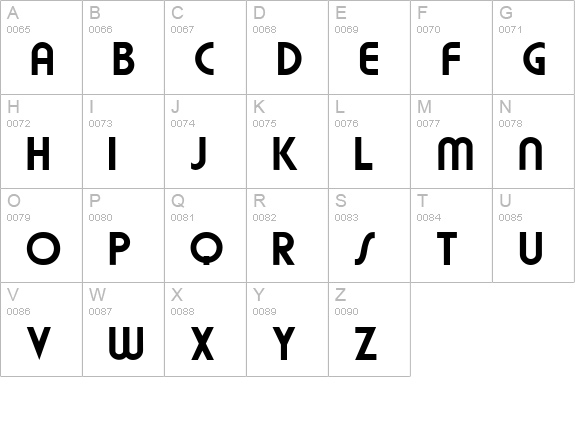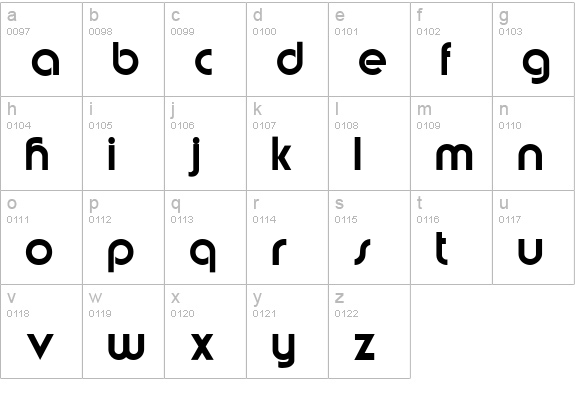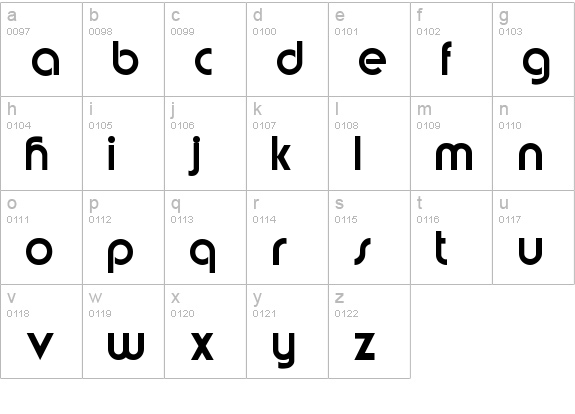
Mumbo Display SSi Font Details
Mumbo Display SSi font is a bold and eye-catching typeface that exudes modernity and creativity. Its unique design features sharp edges and clean lines, making it perfect for headlines, posters, and branding projects that require a touch of sophistication. This versatile font is sure to make your text stand out and leave a lasting impression on your audience. What's even better is that Mumbo Display SSi font is available for free download at FontsMarket.com. This means you can easily access this high-quality font without any cost, making it a valuable addition to your font collection. Don't miss out on the opportunity to enhance your designs with the distinct style of Mumbo Display SSi font - download it today and elevate your projects to the next level!